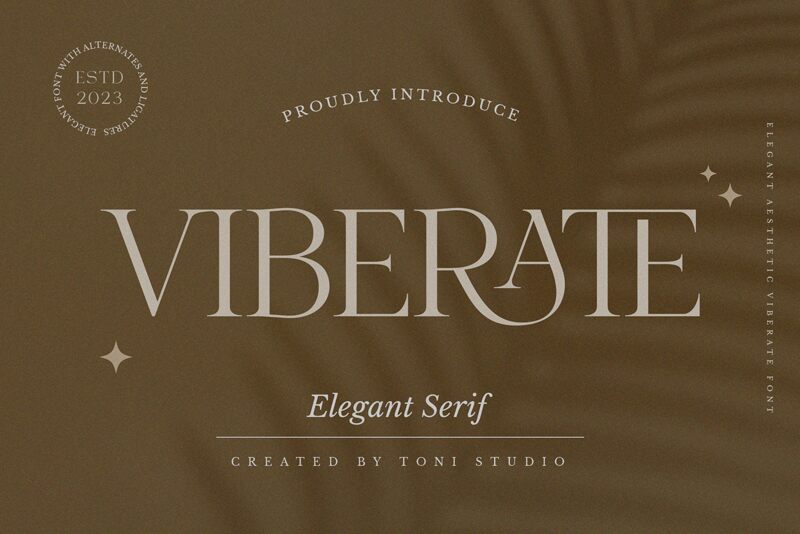
VIBERATE
Viberate designed by ToniStudio is a semi-light serif font offering an elegant touch with its interconnected charm. Its clean lines and smooth serifs strike the perfect balance between classic and contemporary design, making it suitable for a range of creative projects.
Use it to create stunning logos that exude sophistication, or captivate readers with titles that evoke a timeless sense of style. With its versatile and adaptable composition, this font is also perfect for adding a touch of elegance to magazine layouts or other editorial designs. Let "VIBERATE" elevate your next project with its refined and graceful aesthetic.